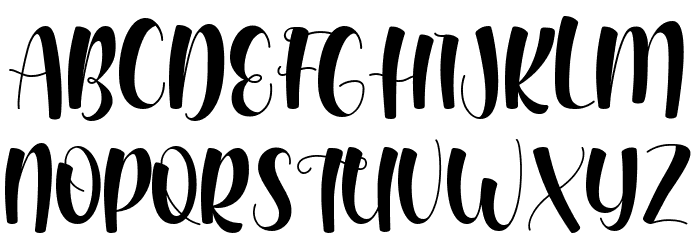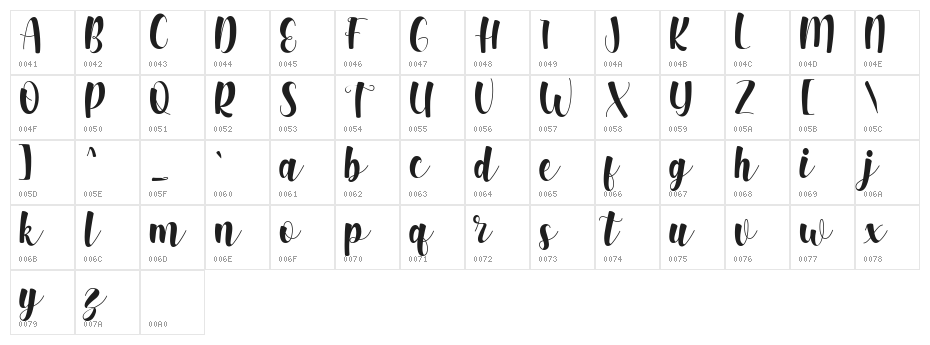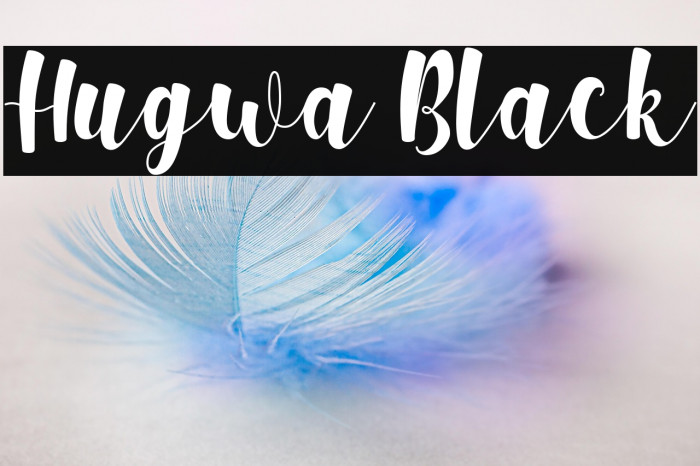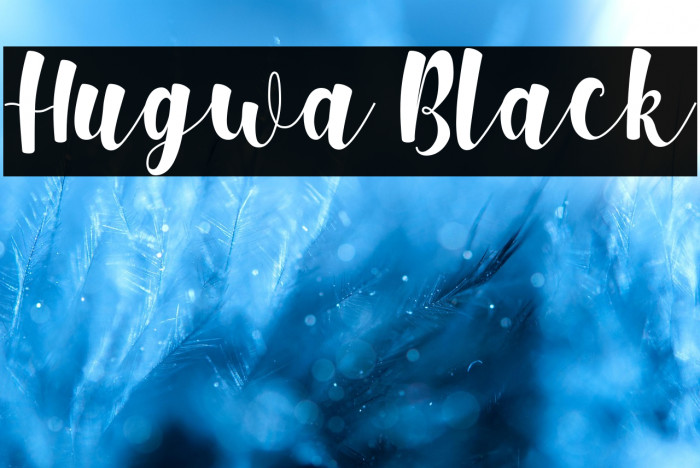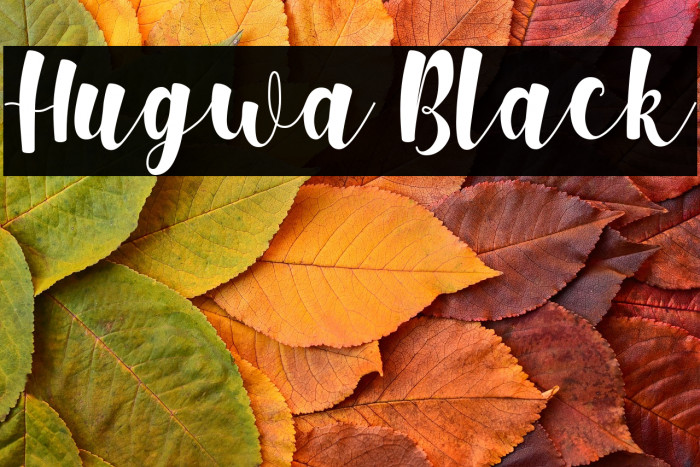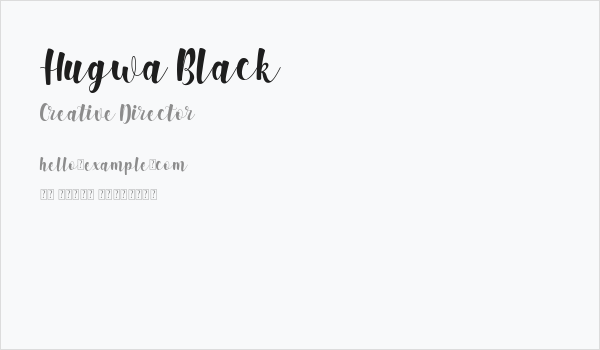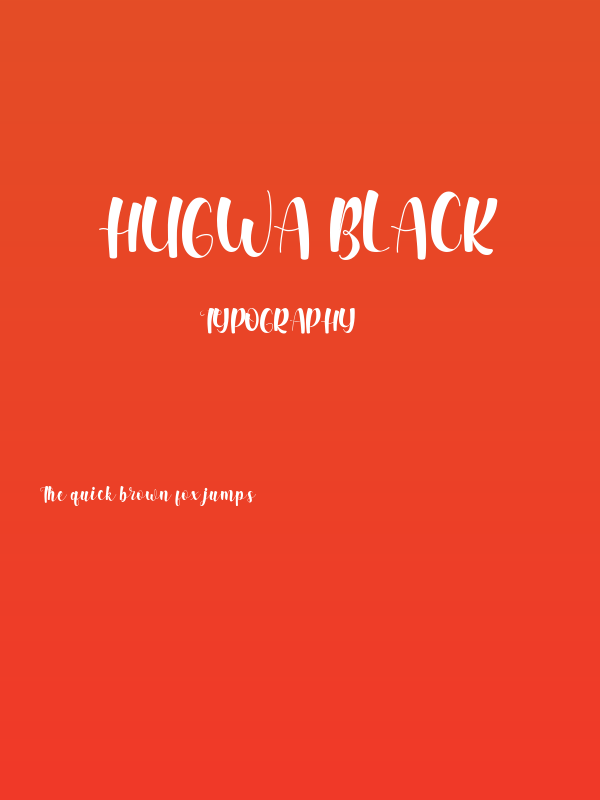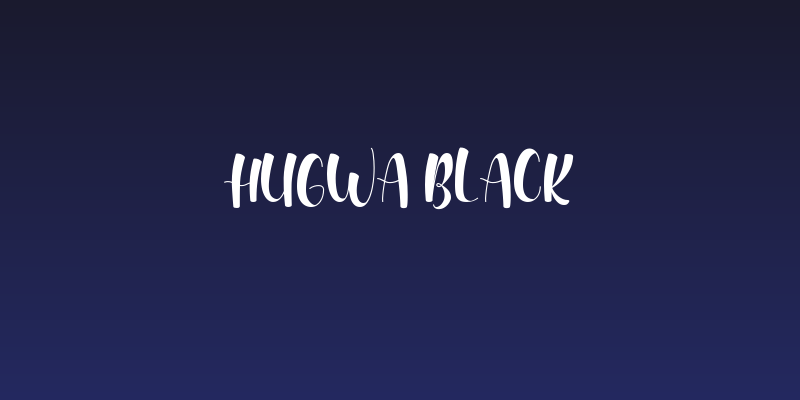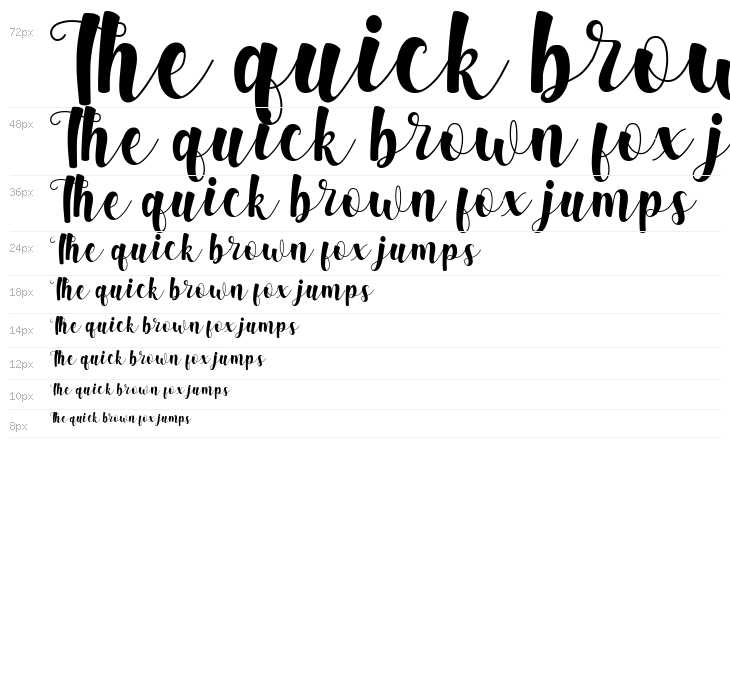
Hugwa Black Font
Hugwa Black Description
This font features a bold and expressive script style, characterized by its flowing, cursive letterforms. The strokes are thick and consistent, giving it a strong presence. The uppercase letters are particularly striking with their exaggerated curves and loops, while the lowercase letters maintain a harmonious flow. The overall appearance is both elegant and playful, making it suitable for creative and artistic projects. The font's design includes a mix of smooth and sharp edges, adding to its dynamic and lively character.